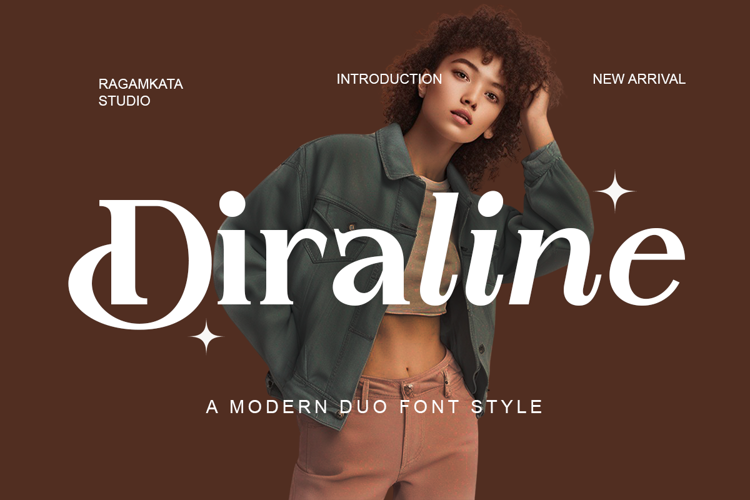
Diraline Font
Diraline is modern serif font with elegance refined sophistication. Designed with sharp serifs and balanced proportions, this font offers a contemporary touch ideal for high-end branding, editorial design, or luxury packaging. The typeface features a luxurious italic version, achieving a harmonious blend of tradition and modernity, imparting an aura of grandeur and class to every word.
– Stylistic Alternates
– Ligatuers Character
– Multilingual Support
Ragamkata Studio